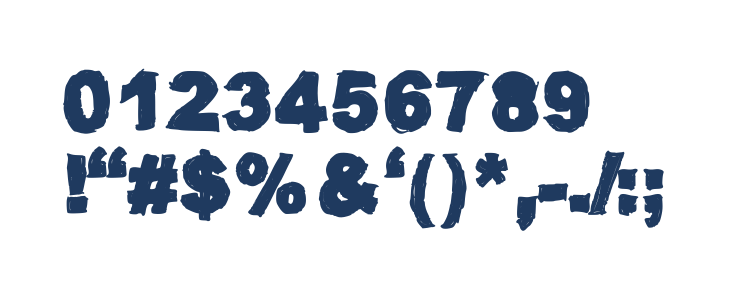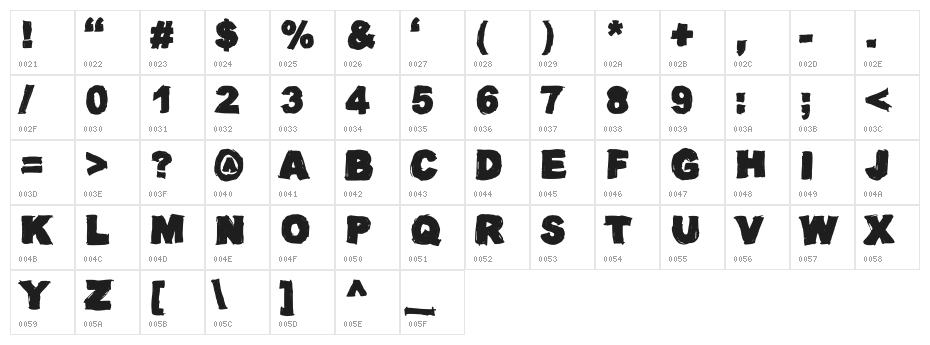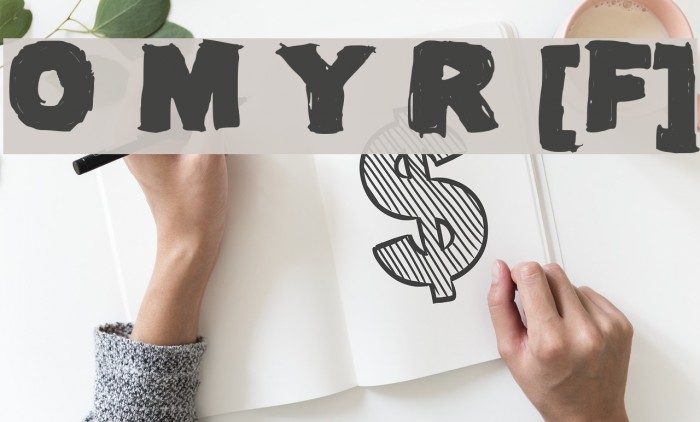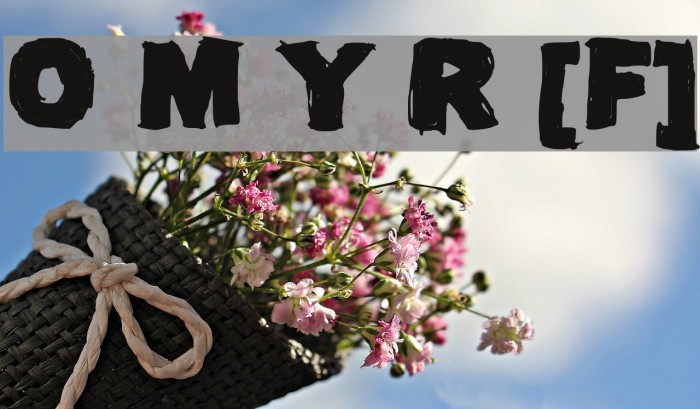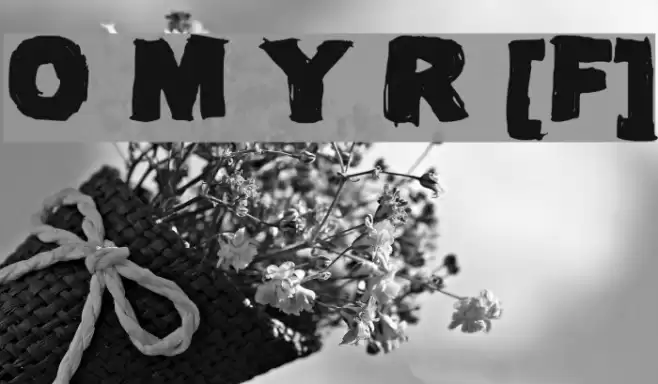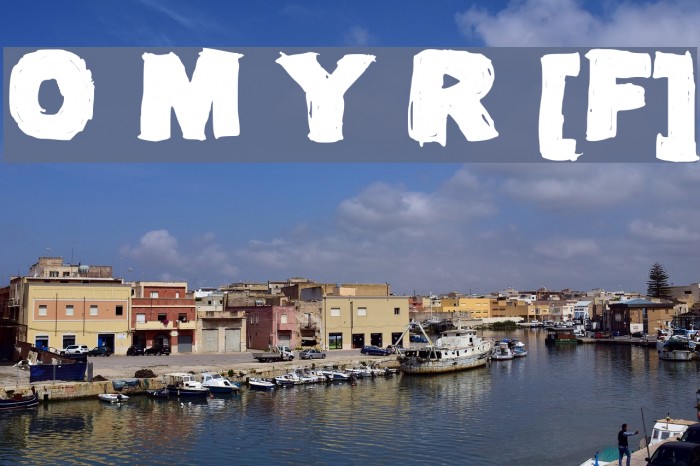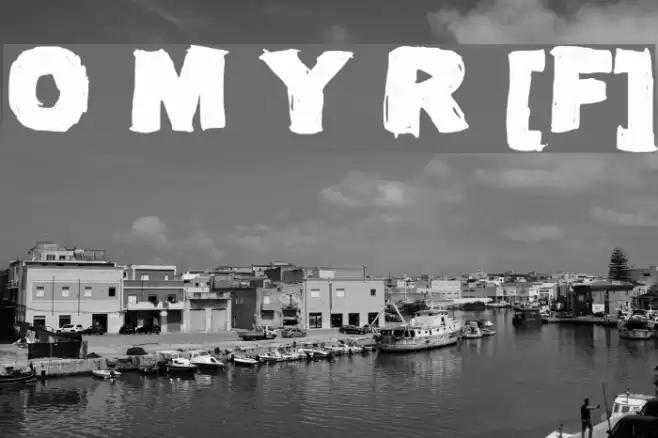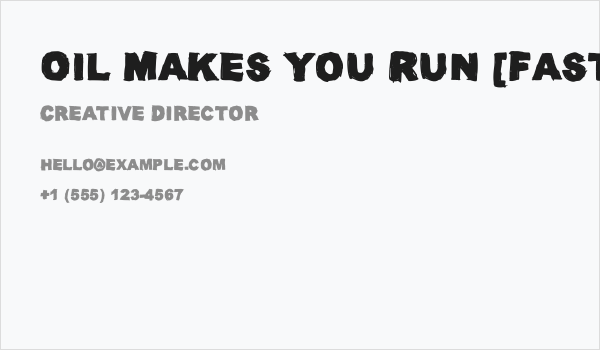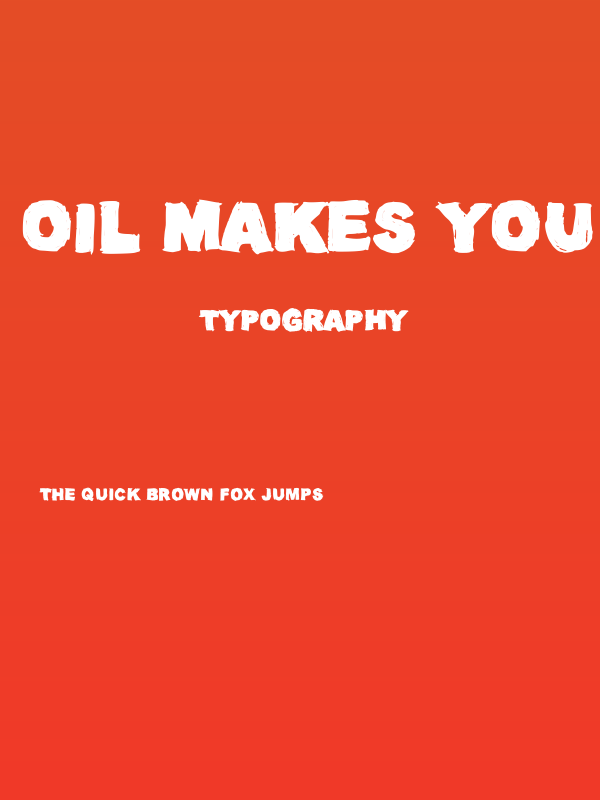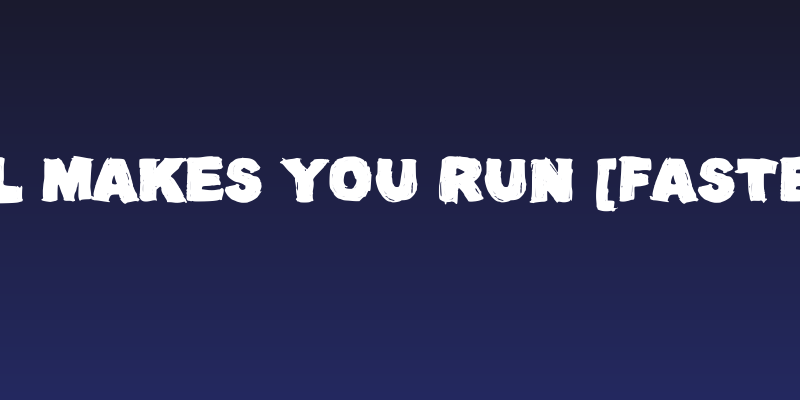
Oil Makes You Run [Faster] Font
Oil Makes You Run [Faster] Description
This bold and expressive font features a rugged, hand-painted style that exudes energy and dynamism. The characters are thick and uneven, with a textured appearance that suggests movement and spontaneity. The uppercase and lowercase letters maintain a consistent boldness, while the numbers and special characters complement the overall aesthetic. This font's unique style makes it stand out, perfect for projects that require a strong visual impact.